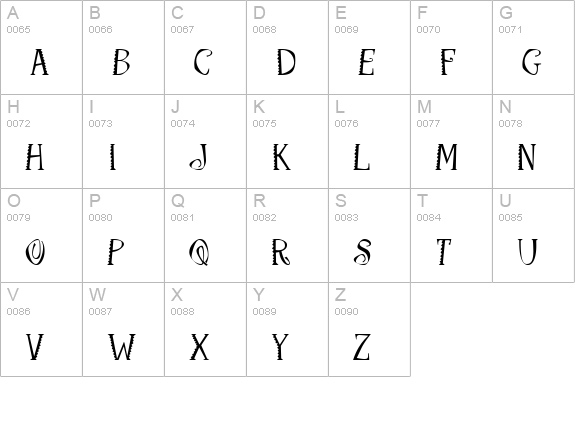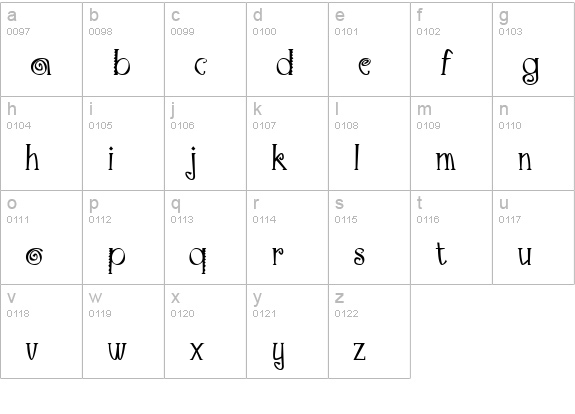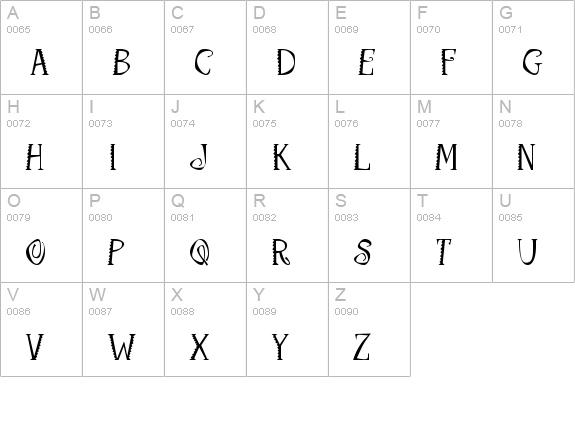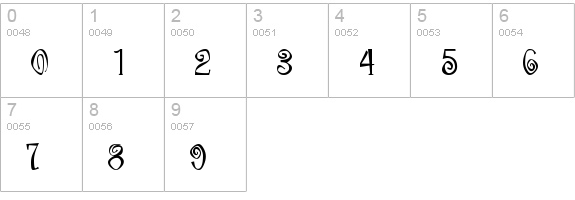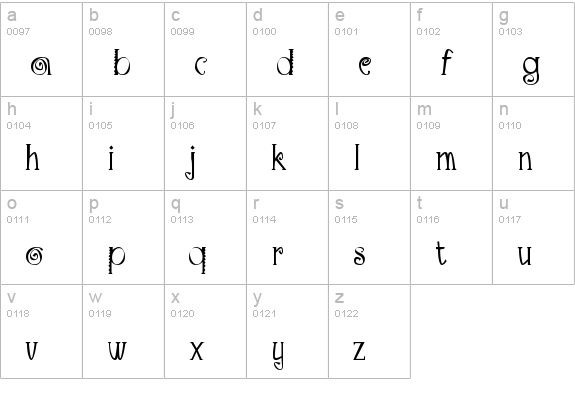
Maraca font is a striking display typeface that combines elegance with a touch of playfulness. Its unique and dynamic letterforms are sure to make a lasting impression in any design project. With its bold strokes and rounded edges, Maraca font captures attention and adds a contemporary flair to any text. But what makes Maraca font even more appealing is that it is free! Yes, you read that right. This stunning font is freely available to download at FontsMarket.com. Whether you are a graphic designer, a web developer, or simply someone looking to add a touch of style to your personal projects, Maraca font is a versatile choice that won't break the bank. In addition to its eye-catching appearance, Maraca font also boasts a wide range of language support, making it suitable for international projects. Whether you need to create stunning headlines, captivating logos, or eye-catching posters, this font has got you covered. So why wait? Download Maraca font today and elevate your designs to new heights. With its unique blend of elegance and playfulness, this font is sure to become a staple in your typographic arsenal. And the best part? It won't cost you a dime. Head over to FontsMarket.com now and get your hands on this amazing font while it's still free!